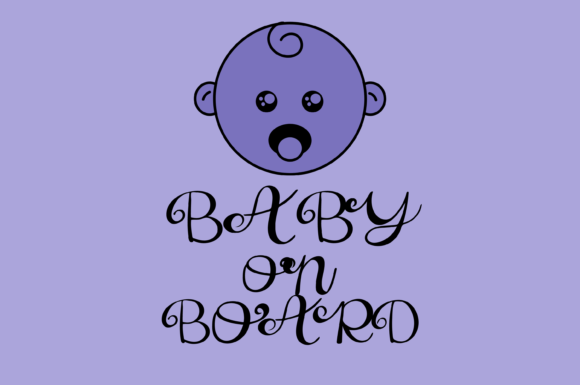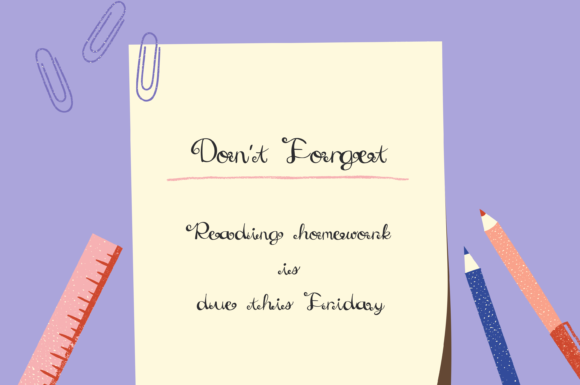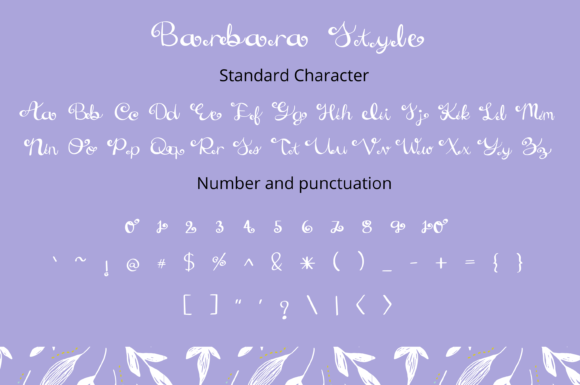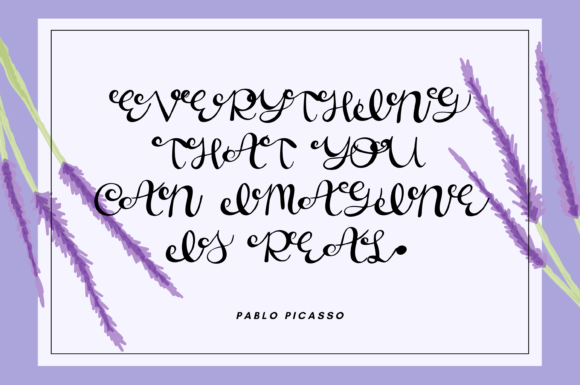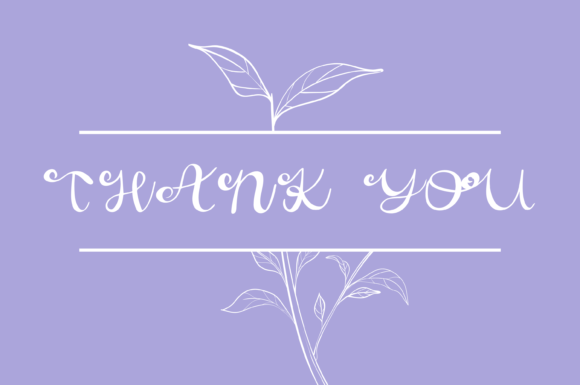
Discover the Charm of Barbara Style Font: Elevate Your Designs with Whimsy and Style
Are you on the hunt for a font that adds a touch of personality and flair to your projects? Look no further than the Barbara Style Font, a whimsical and stylish handwritten font that’s sure to make your designs stand out. With its unique charm and versatility, Barbara Style is the perfect addition to any creative endeavor, from crafting and scrapbooking to graphic design and digital art.
The Characteristics of Barbara Style Font
Barbara Style Font is a beautifully crafted handwritten font that exudes a sense of playfulness and sophistication. Its whimsical nature makes it perfect for projects that require a touch of personality, while its stylish appearance ensures that it will complement even the most modern and sleek designs. The font’s unique characteristics include:
- Handwritten charm: Barbara Style Font is a true handwritten font, with each letter and numeral carefully crafted to create a sense of warmth and personality.
- Whimsical flair: The font features a range of subtle flourishes and swashes, adding a touch of whimsy and playfulness to your designs.
- Versatility: Barbara Style Font is incredibly versatile, making it suitable for a wide range of projects, from crafting and scrapbooking to graphic design and digital art.
Why Choose Barbara Style Font?
So why choose Barbara Style Font for your next project? Here are just a few reasons why this font stands out from the crowd:
- Easy to read: Despite its whimsical nature, Barbara Style Font is incredibly easy to read, making it perfect for use in body text, headings, and titles.
- Highly customizable: The font comes with a range of swashes and alternates, allowing you to customize it to suit your project’s unique needs.
Project Ideas for Barbara Style Font
So what can you create with Barbara Style Font? The possibilities are endless! Here are a few project ideas to get you started:
- Scrapbooking: Add a touch of personality to your scrapbook pages with Barbara Style Font, perfect for journaling, titles, and captions.
- Crafting: Use Barbara Style Font to add a personal touch to your craft projects, from card making to DIY home decor.
- Graphic design: Barbara Style Font is perfect for use in graphic design projects, from logos and branding to social media graphics and more.
- Digital art: Add a touch of whimsy to your digital art with Barbara Style Font, perfect for use in illustrations, watercolor designs, and more.
Tips for Using Barbara Style Font
To get the most out of Barbara Style Font, here are a few tips to keep in mind:
- Experiment with different colors: Barbara Style Font looks great in a range of colors, from bold and bright to soft and pastel.
- Play with swashes and alternates: Take advantage of the font’s customizable features, using swashes and alternates to add visual interest to your designs.
- Mix and match with other fonts: Barbara Style Font pairs perfectly with a range of other fonts, so don’t be afraid to experiment with different combinations.